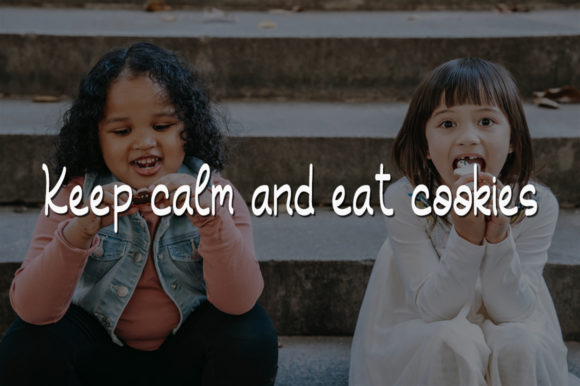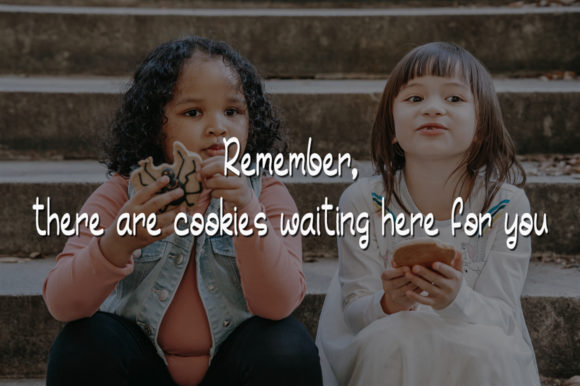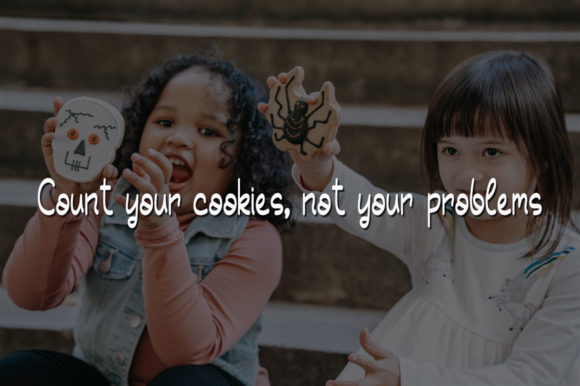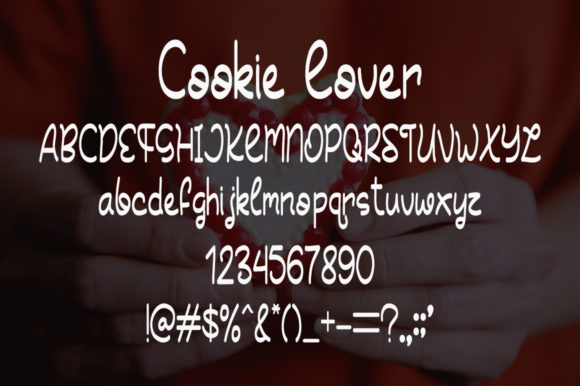
The Sweetest Typography: Introducing the Cookie Lover Font
Have you ever found yourself in the middle of a creative project, surrounded by scraps of paper, glue, and glitter, with a steaming cup of coffee by your side? That’s exactly where I was when I stumbled upon the adorable Cookie Lover Font. Its playful, handwritten style instantly captured my heart and made me want to create something special with it.
The Cookie Lover Font is a simple yet charming font that’s perfect for adding a touch of whimsy to your craft designs. Its versatility makes it an excellent choice for designers who want to add a personal touch to their projects. With the Cookie Lover Font, you can create beautiful and unique designs that will surely stand out from the crowd.
Cookie Lover Font Key Features
- Font Family: Cookie Lover Font offers a unique, playful font style with a mix of handwritten and cursive elements.
Designer Review: Cookie Lover Font
At first glance, the Cookie Lover Font has a certain charm to it. The playful, handwritten style is sure to catch the eye of anyone with a sweet tooth. ✨ I appreciate the subtle texture and irregularities that give the font a more human touch.
However, upon closer inspection, some limitations become apparent. ✨ The font may not be suitable for large blocks of text, as the irregularities can make it difficult to read. Additionally, the font may not be the best choice for formal or professional applications, as it has a rather casual and whimsical feel.
Here are some specific pros and cons:
- ✨ Unique, playful style
- ✨ Subtle texture and irregularities
- ⚠️ May not be suitable for large blocks of text
- ⚠️ May not be suitable for formal or professional applications
Overall, I think the Cookie Lover Font is a fun and creative choice for projects where a playful, handwritten feel is desired. While it may not be the best choice for every project, it’s certainly a great option for those looking to add a little whimsy to their design.
The Cookie Lover Font is perfect for bakeries, food bloggers, and anyone who loves cookies! Use it to create eye-catching menu boards, social media graphics, and packaging designs.
For best results, pair the Cookie Lover Font with high-quality images of cookies and other baked goods.
Alternatives to Cookie Lover Font for Designers
Great Vibes is a modern script font that is perfect for creating a fun and playful atmosphere in designs. It is ideal for headings, titles, and short paragraphs where a touch of elegance is required.
Compared to Cookie Lover Font, Great Vibes is more elegant and refined, making it suitable for a wider range of design projects, from fashion to home decor.
Lato is a clean and modern sans-serif font that is perfect for body text, headings, and titles where a neutral tone is required. It is ideal for creating a professional and sophisticated atmosphere in designs.
Compared to Cookie Lover Font, Lato is more minimalist and straightforward, making it suitable for a wider range of design projects, from corporate to editorial.
Playfair Display is an elegant and luxurious serif font that is perfect for creating a sophisticated and high-end atmosphere in designs. It is ideal for headings, titles, and short paragraphs where a touch of luxury is required.